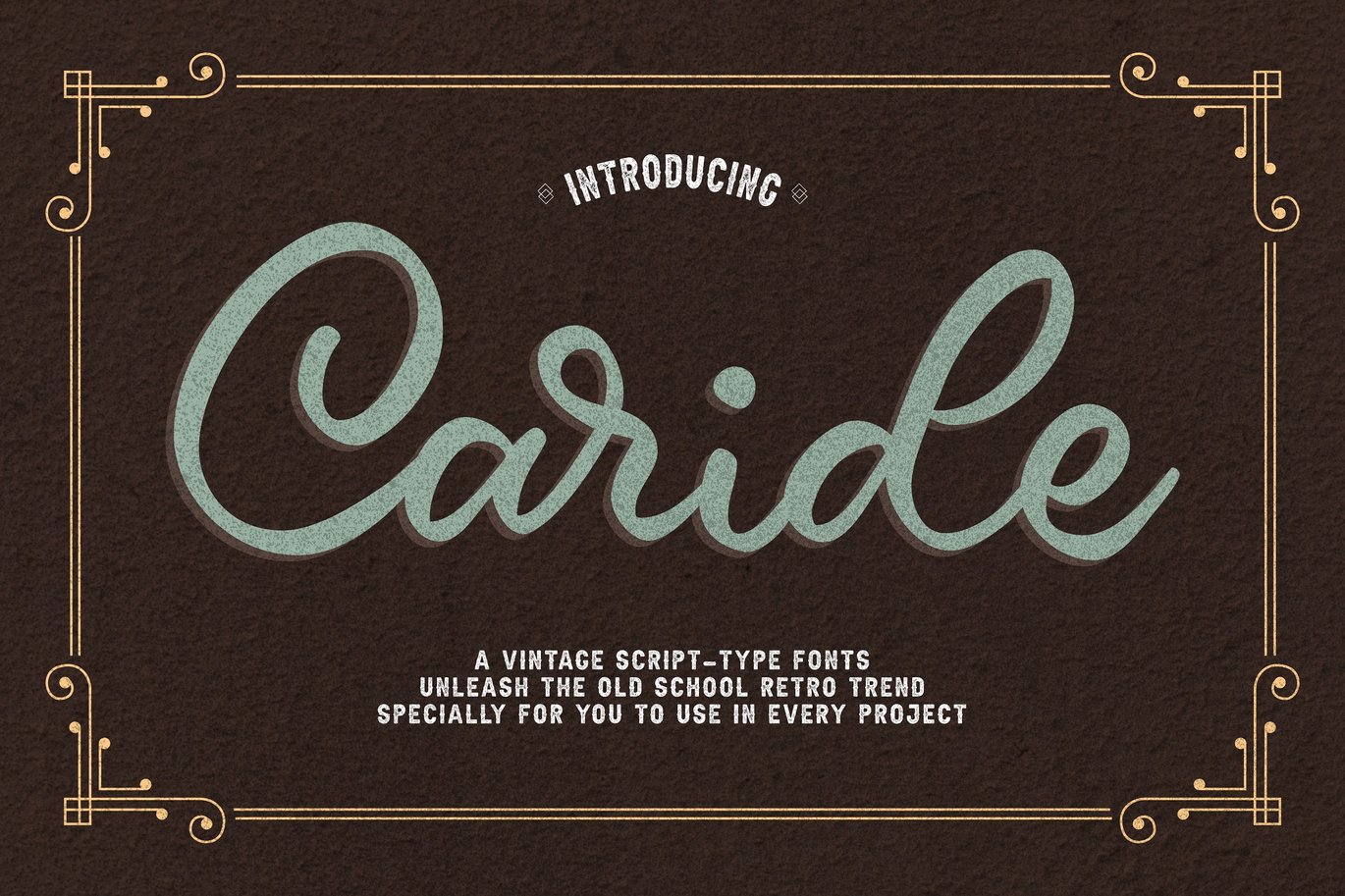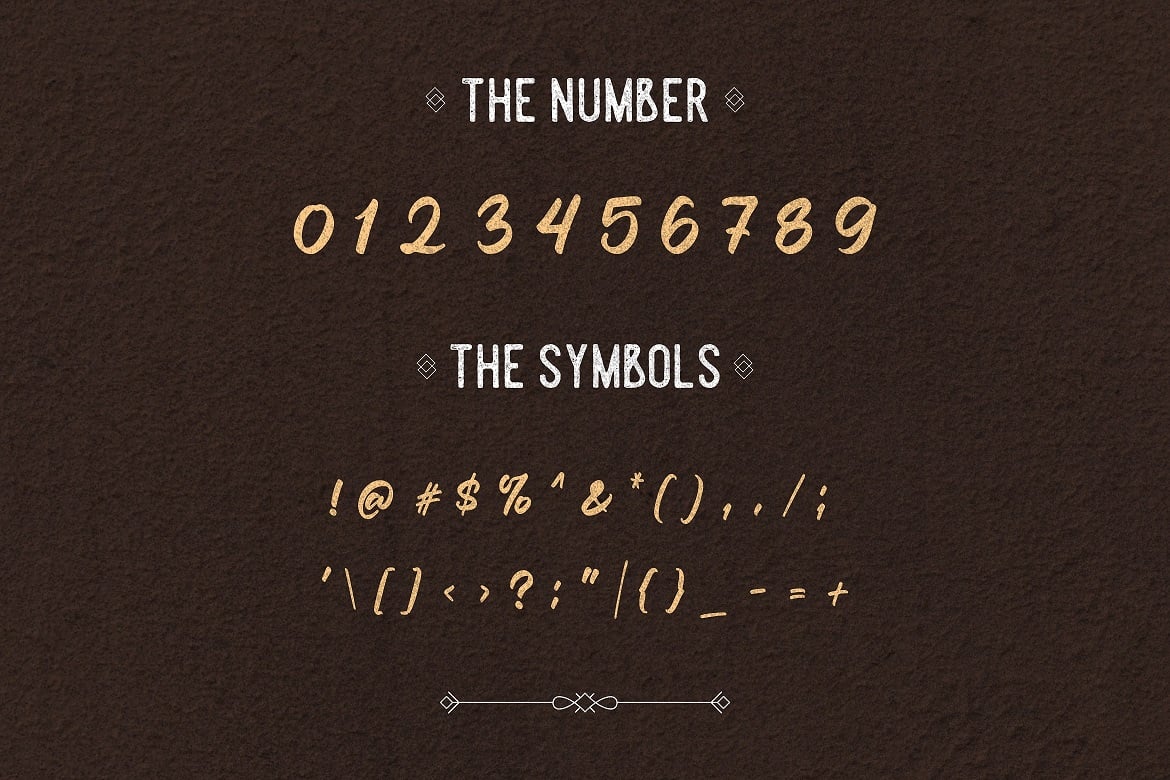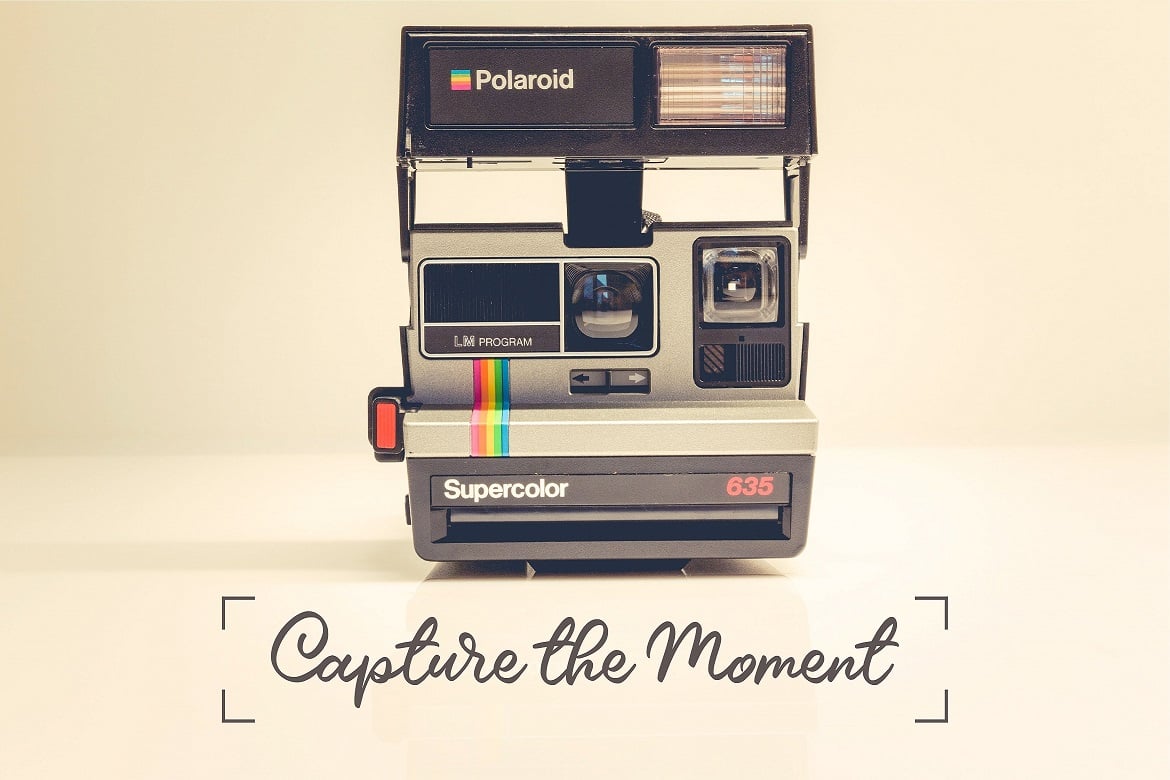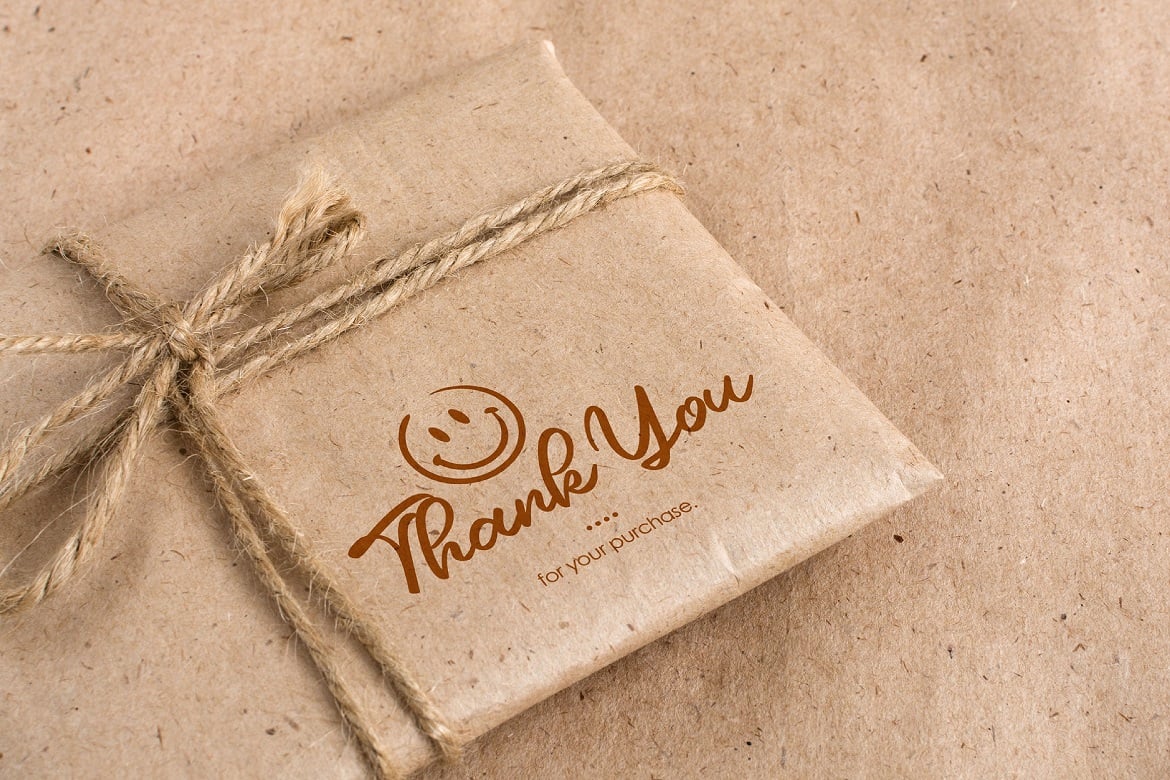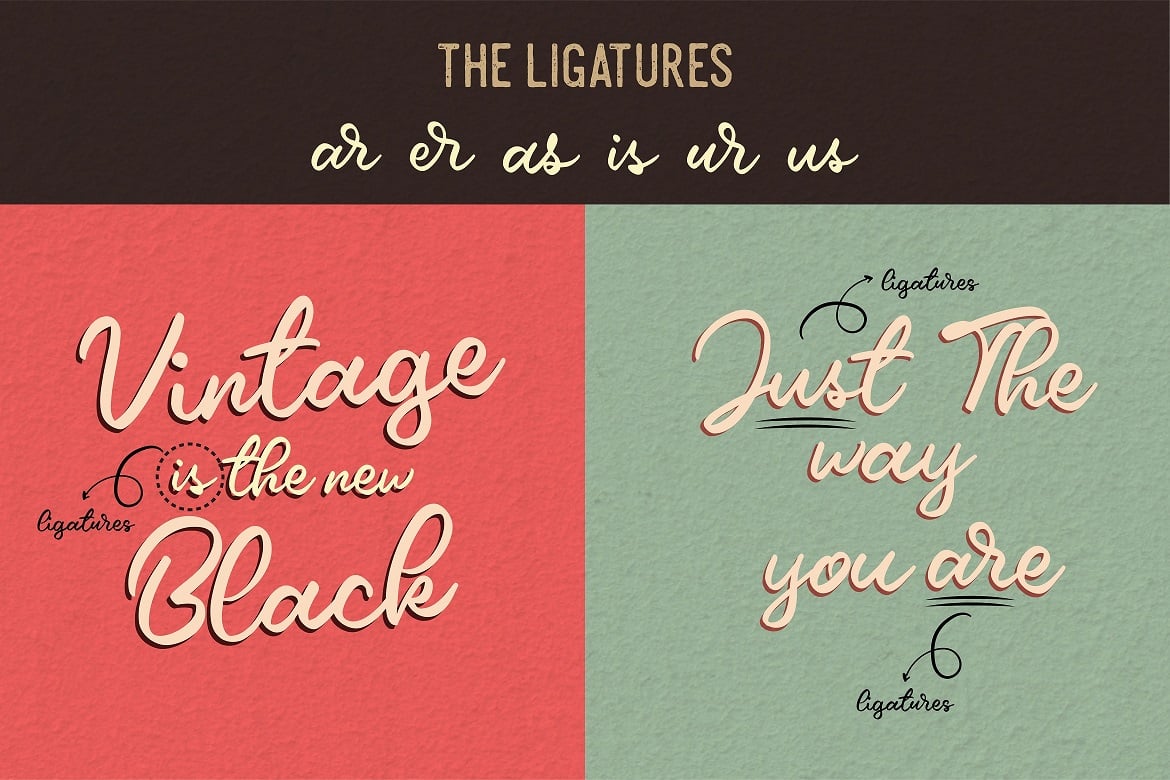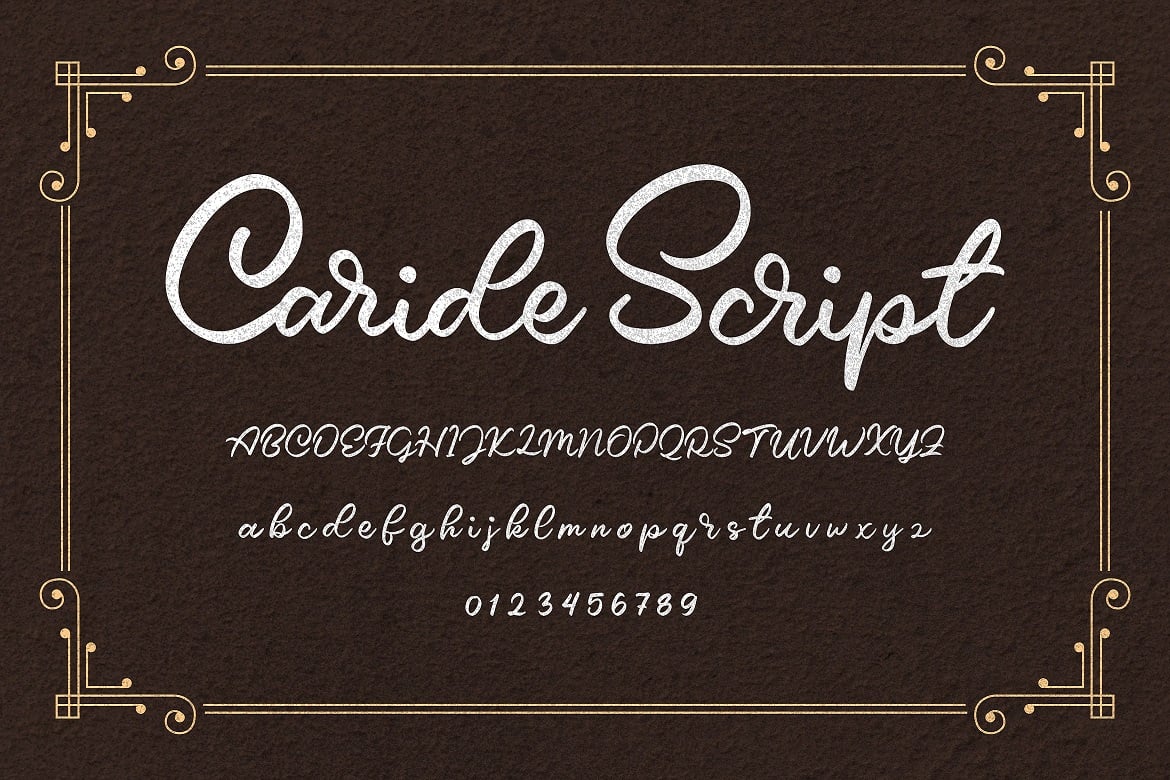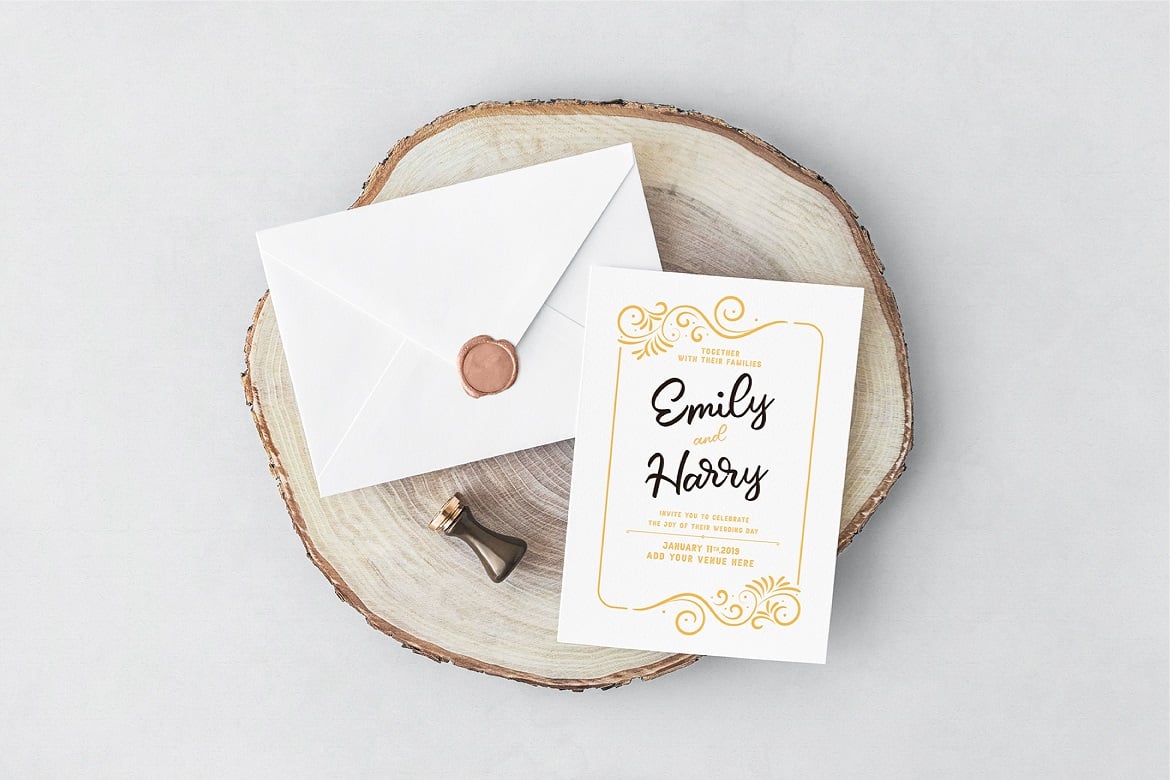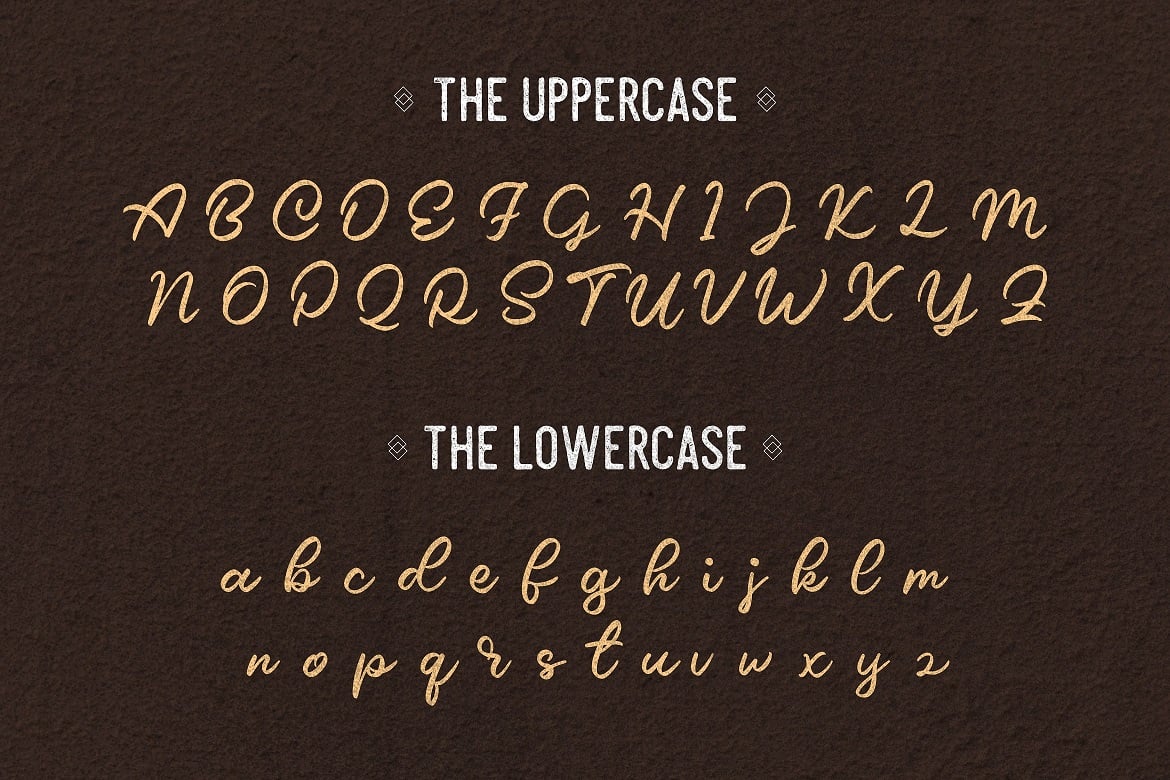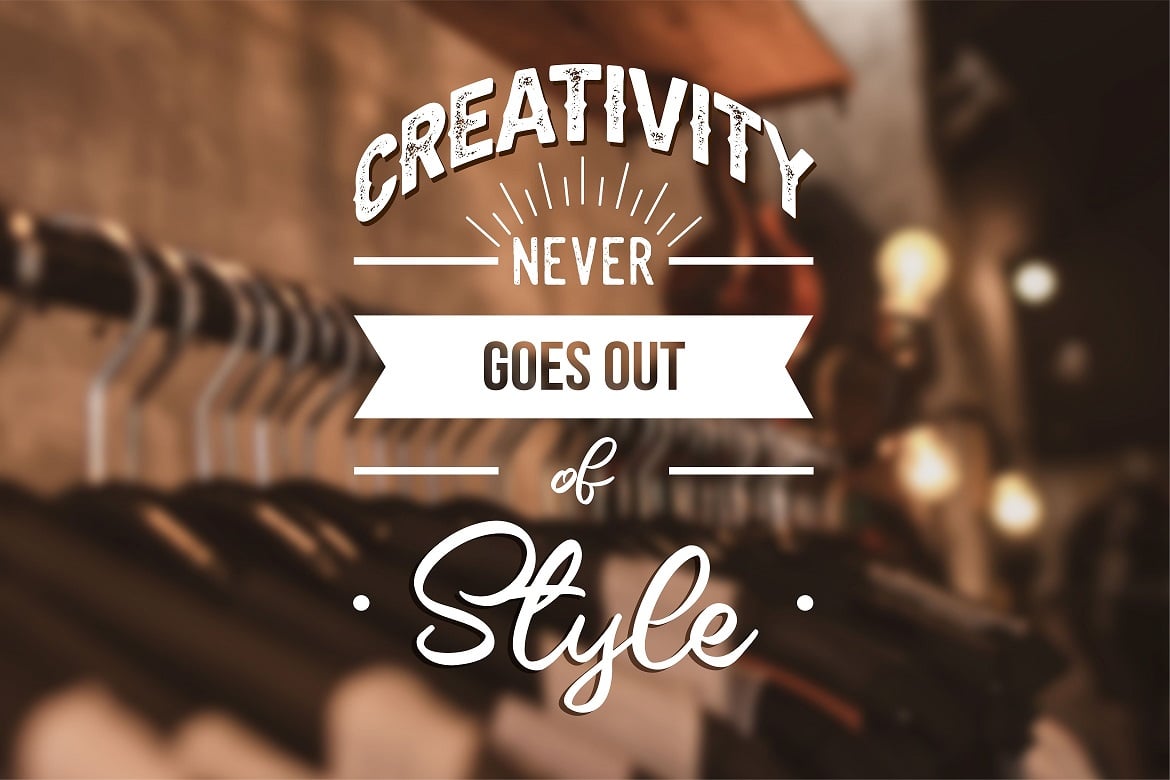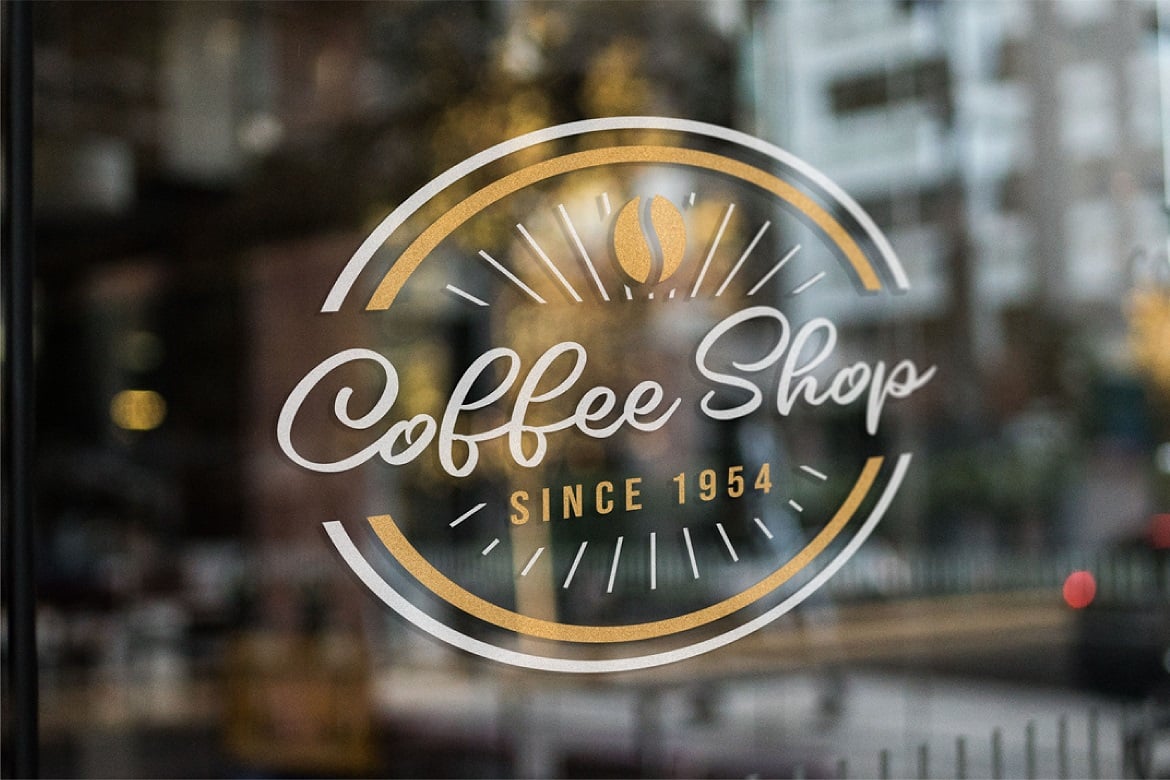
Vintage Script Font
Caride Script
Look back to learn how to look forward – Joe Girard
Find yourself and share your purpose with the Caride Script.
With its bold vintage script type, sometimes you need to remind others that we must look to the past to pave a better way for our future. It’s time for you to unleash the old school retro trend again.
Leather jackets? Making a comeback. Pompadour hairdos? Definitely cool. 70s music? They’re sampled in the music all over our radio stations! The magnificence of the past will surely help you give a new and fresh breath of life to your projects.
This font was designed for you to use in any kind of projects that you might have! They were specifically designed to fit in anywhere you want them to be. We assure you that there will be no awkwardness in the relationship between your text and your designs, they’ll get along well like old-timey partners!
The Caride Script is the perfect addition to bring your perspective to the world. Have the world see you and your encompassing view of the human experience with your creations!